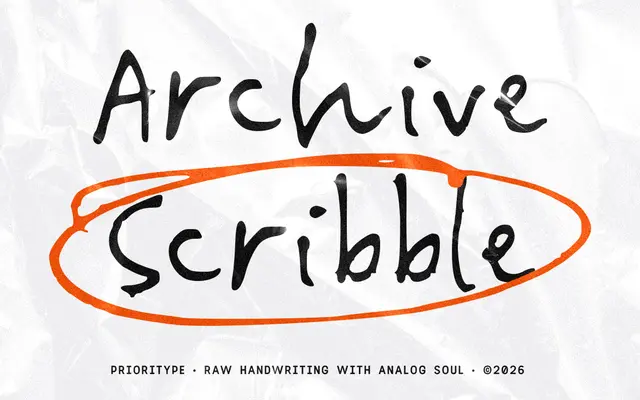
Archive Scribble Font
A casual handwritten typeface imitating spontaneous pen sketches, offered in two subfamilies including an extras set.
Modelled on informal pen and pencil marks, the typeface leans into organic strokes and deliberate imperfections to suggest personal, unpolished writing. It ships in two subfamilies, Archive Scribble and Archive Scribble Extras, and is available in OTF, TTF and WOFF formats. Aimed at branding, packaging, social media and editorial contexts where an unstudied, hand-drawn quality is wanted.
A casual handwritten script imitating spontaneous pen and pencil marks, with organic strokes and deliberate imperfections consistent with informal handwriting typefaces.